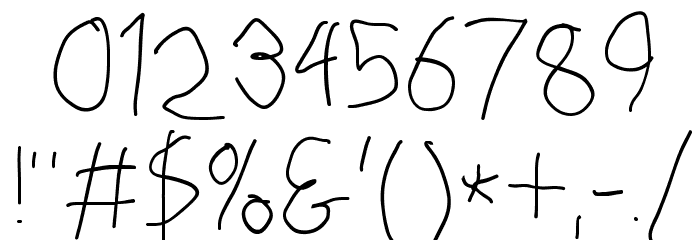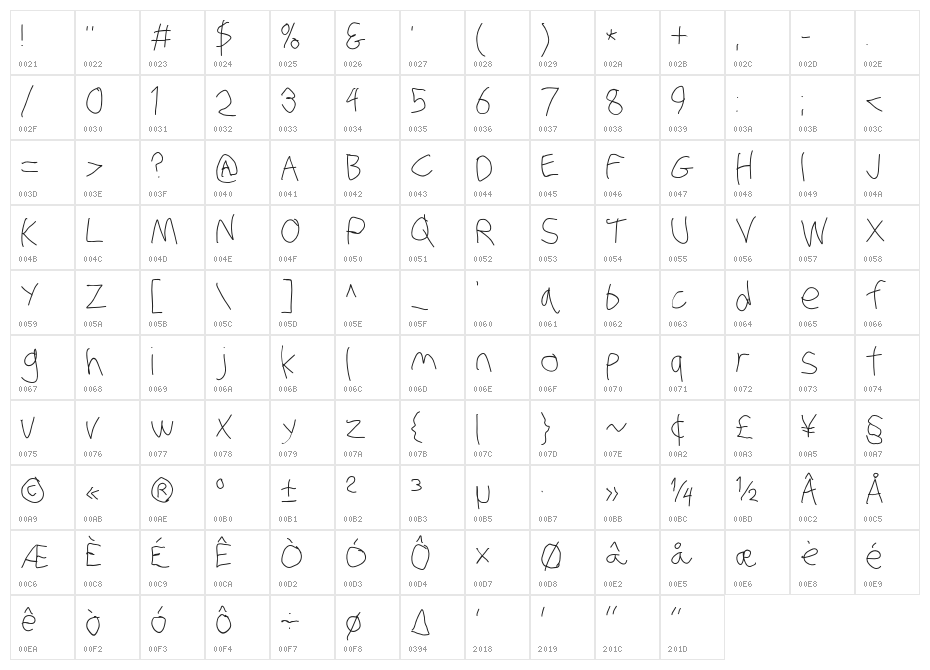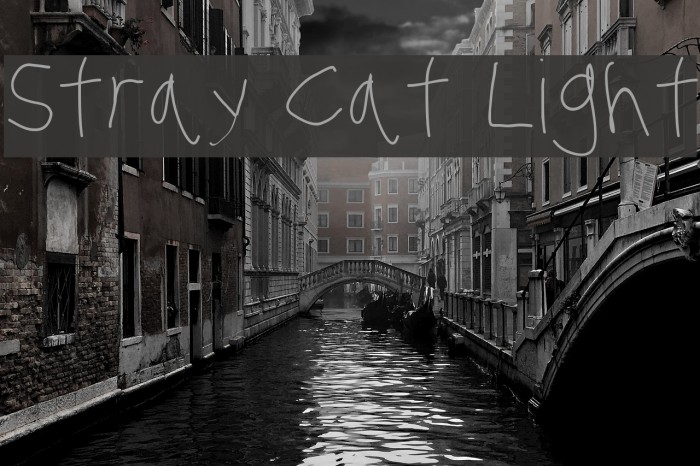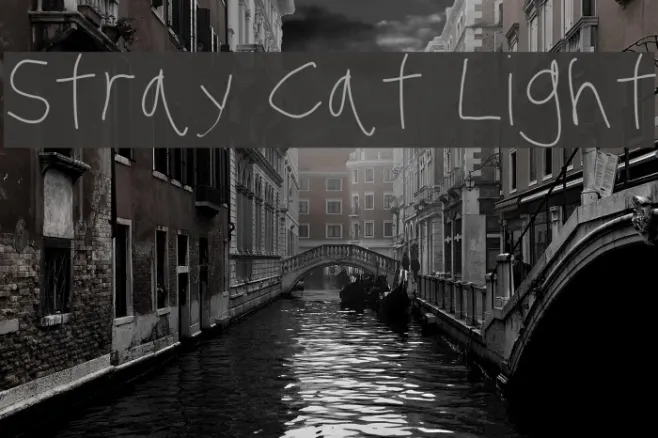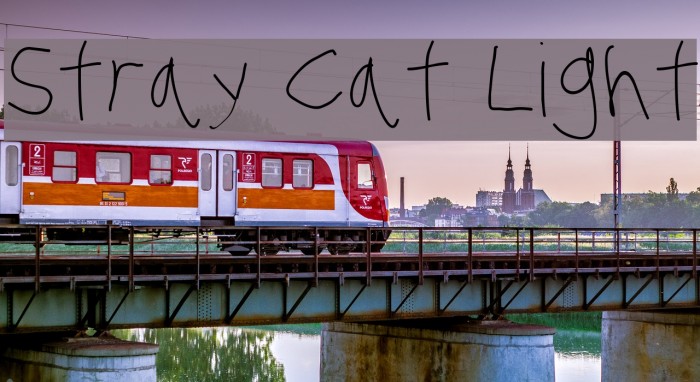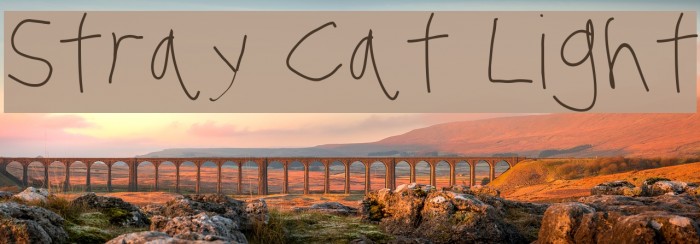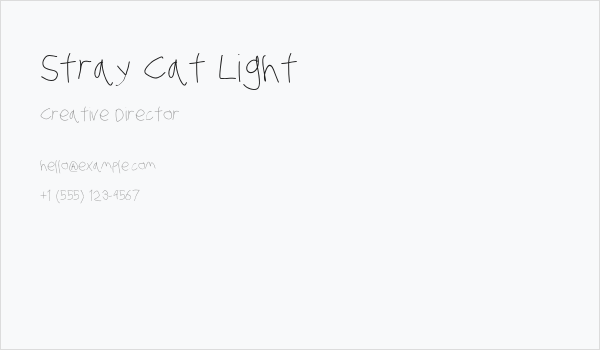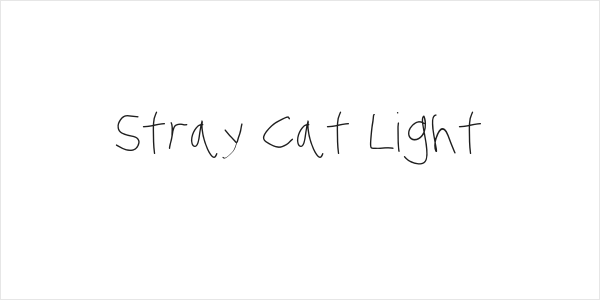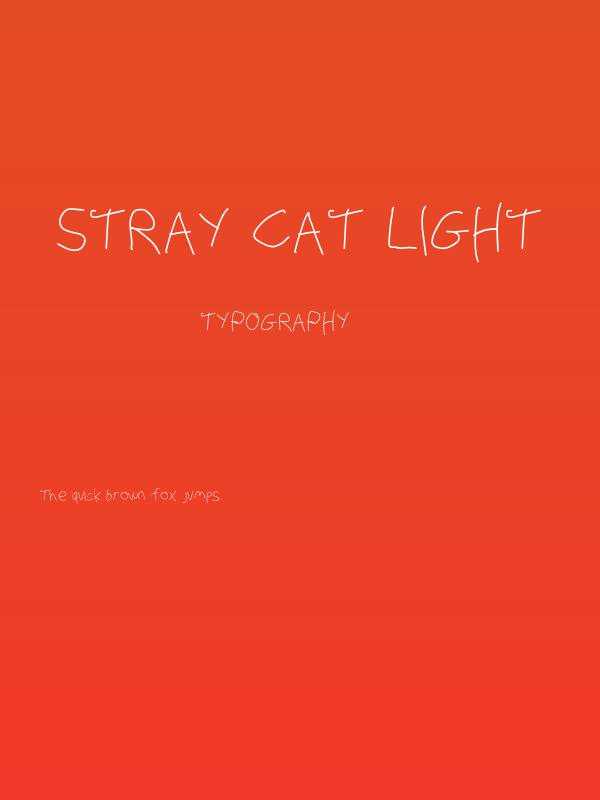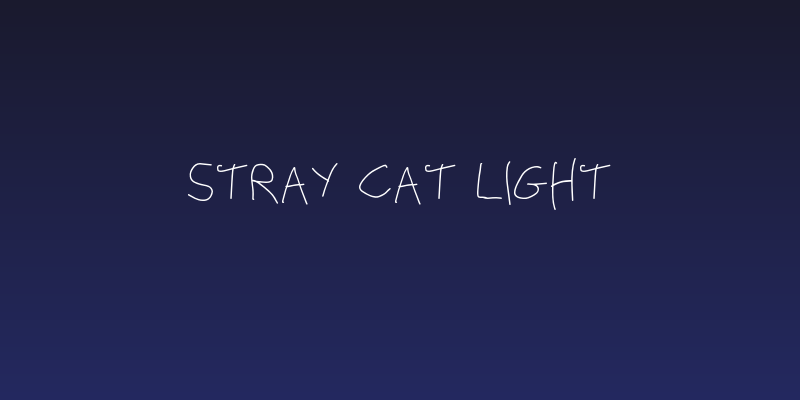
Stray Cat Light Font
Stray Cat Light Description
This font features a playful and informal handwritten style, characterized by its irregular strokes and casual appearance. The letters are slightly slanted, giving a sense of movement and spontaneity. The uppercase and lowercase letters maintain a consistent flow, while the numbers and special characters complement the overall aesthetic. The strokes are thin and uneven, adding to the font's charm and uniqueness. It's suitable for projects that require a personal touch or a relaxed, friendly vibe.
| Use Case | Headlines, Informal text, Personal projects |
| Proposed Projects | Ideal for greeting cards, children's books, casual invitations, and personal blogs. |